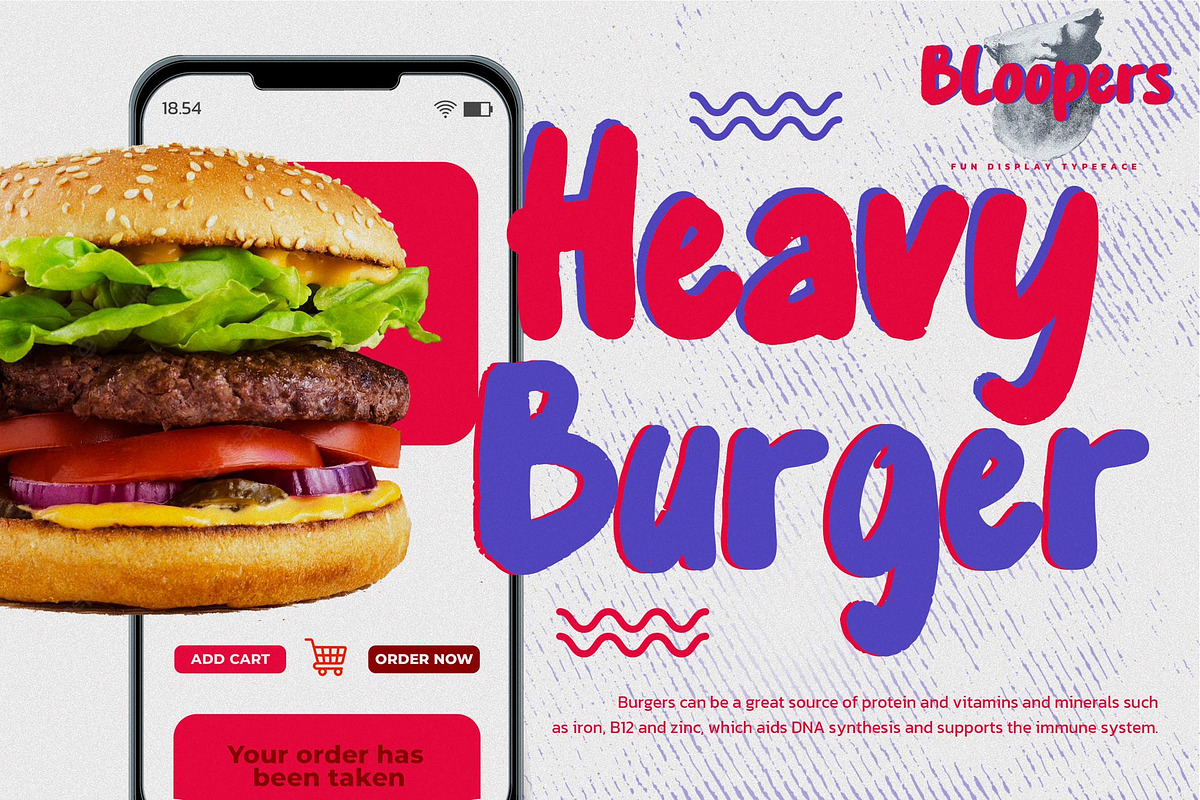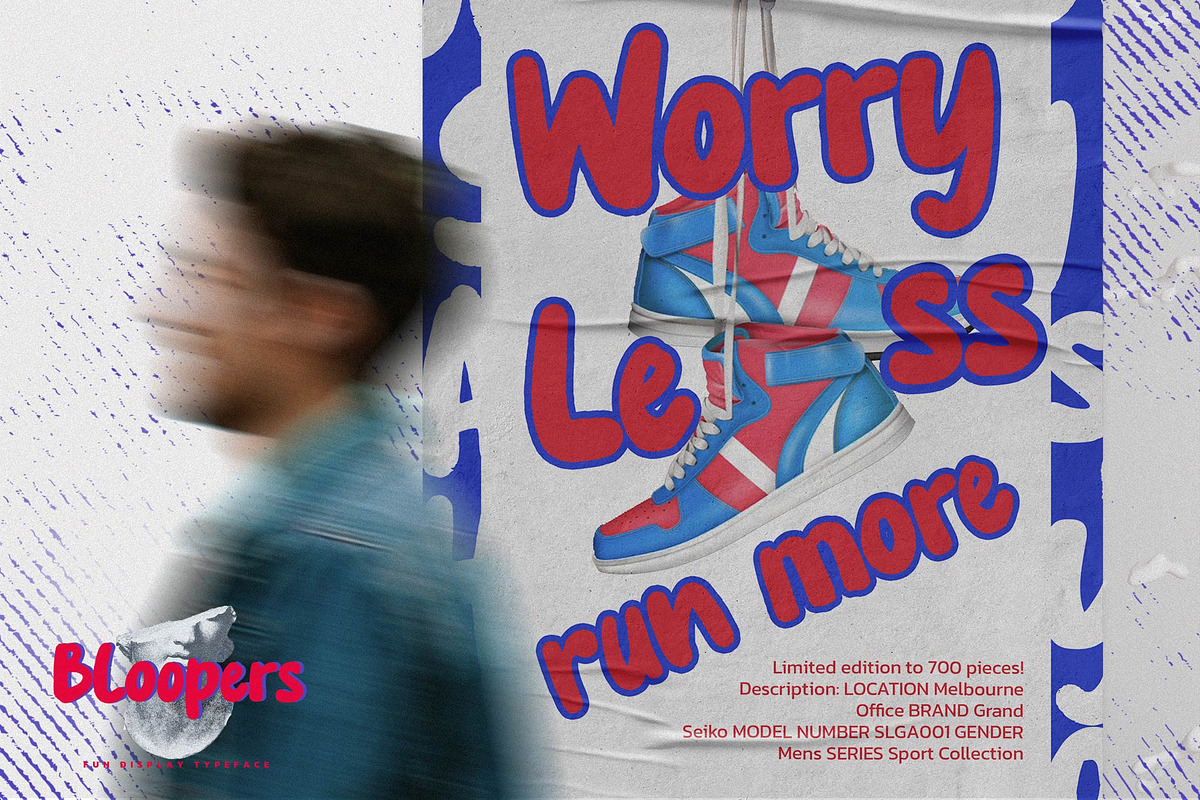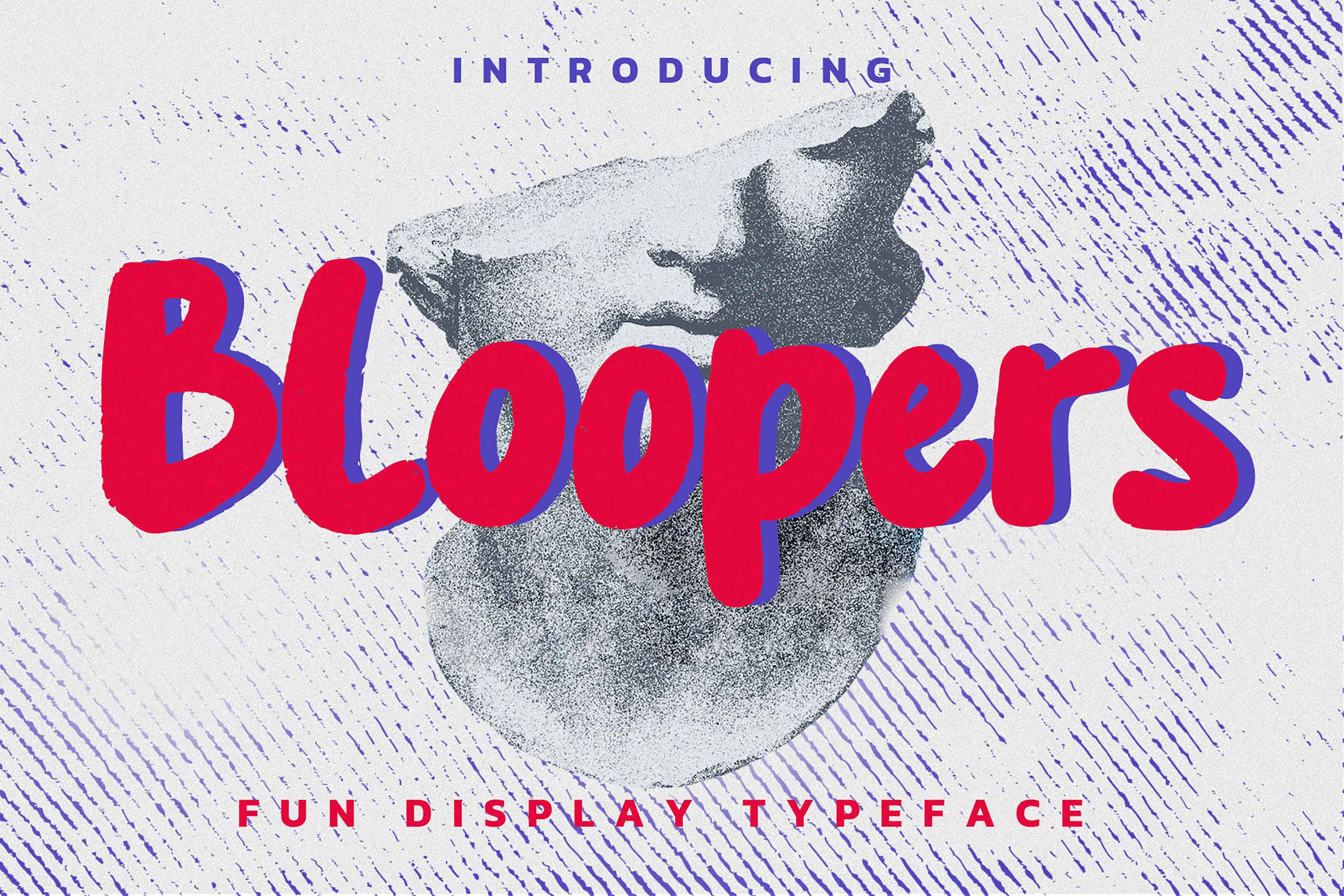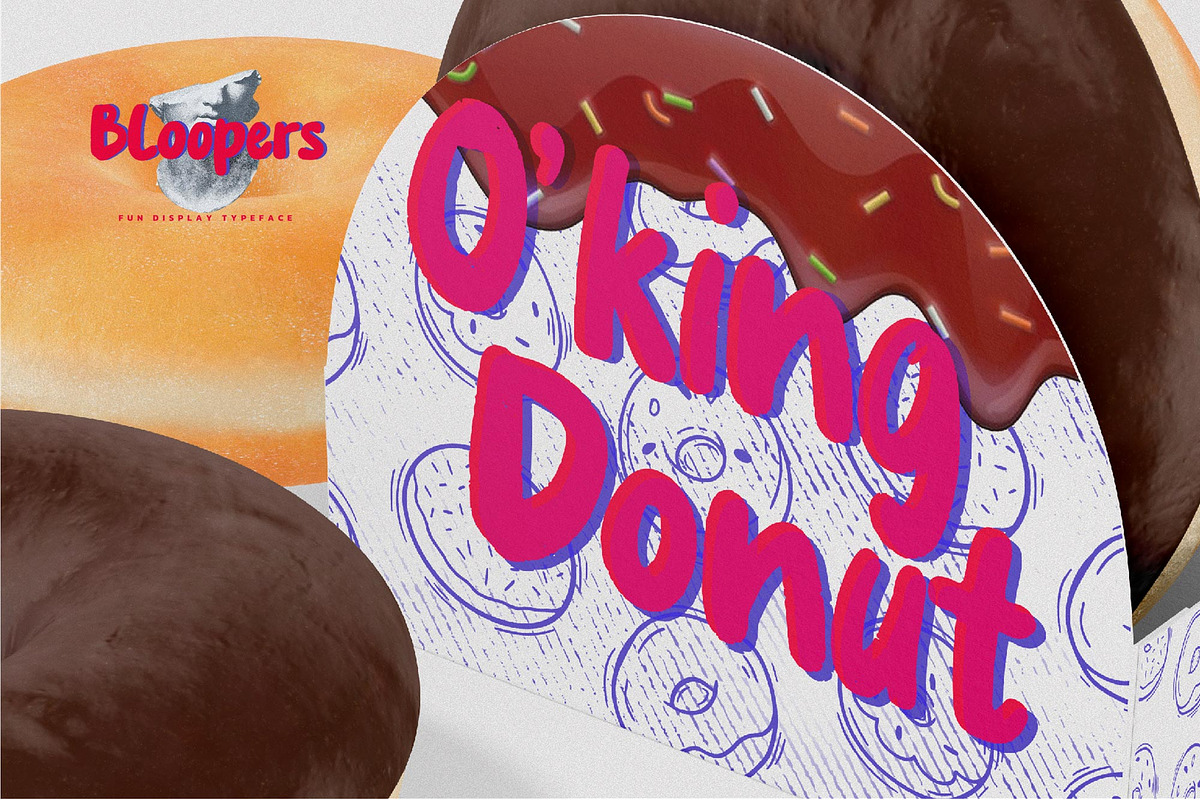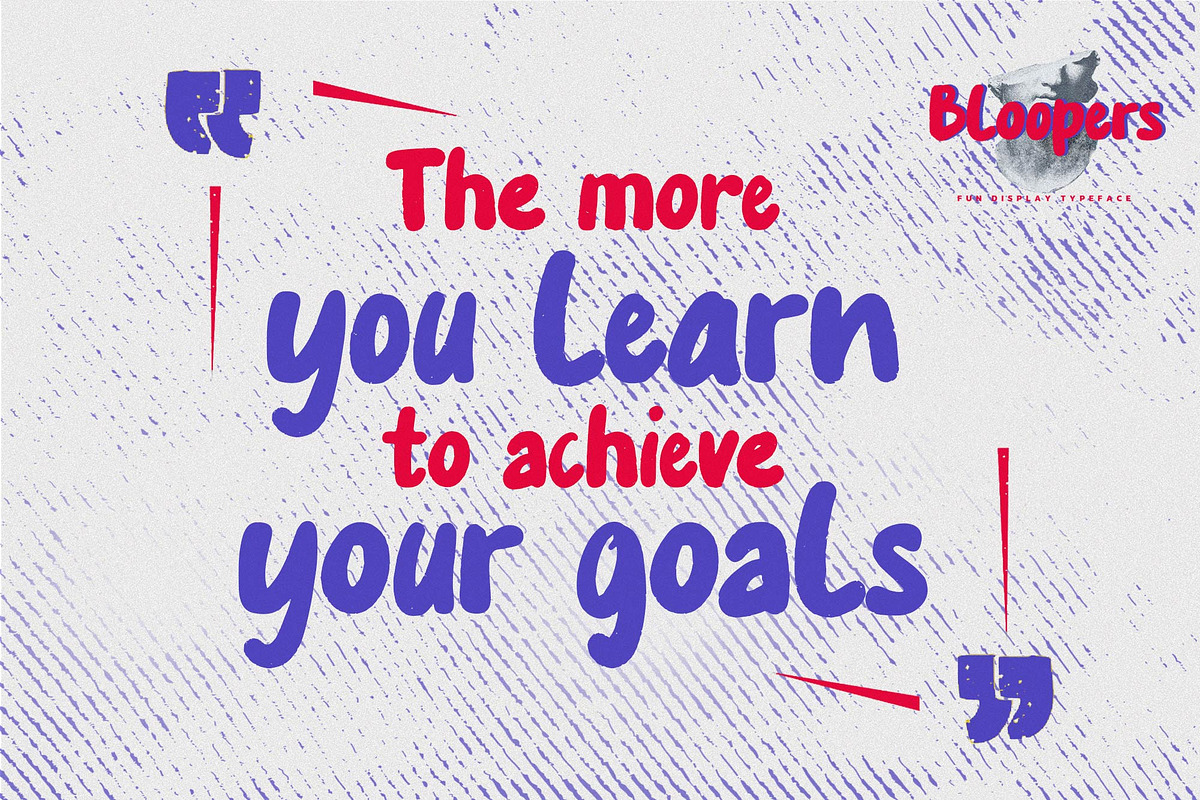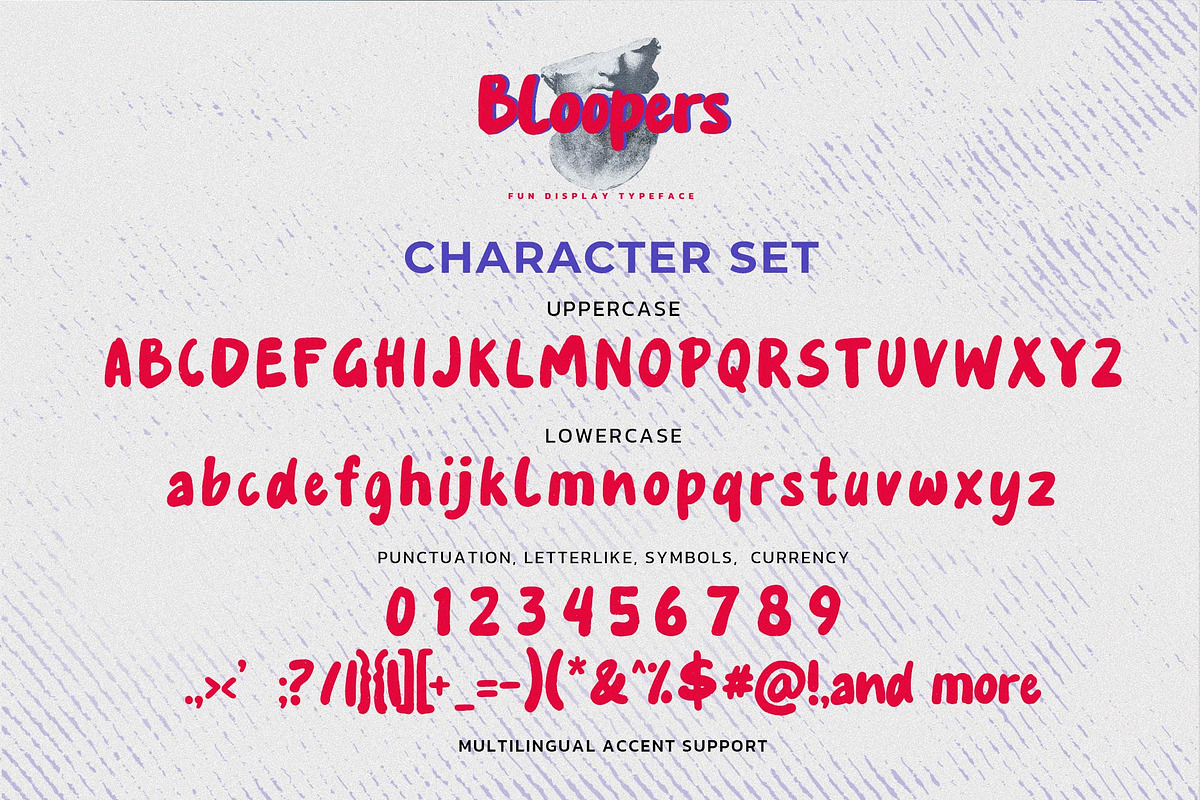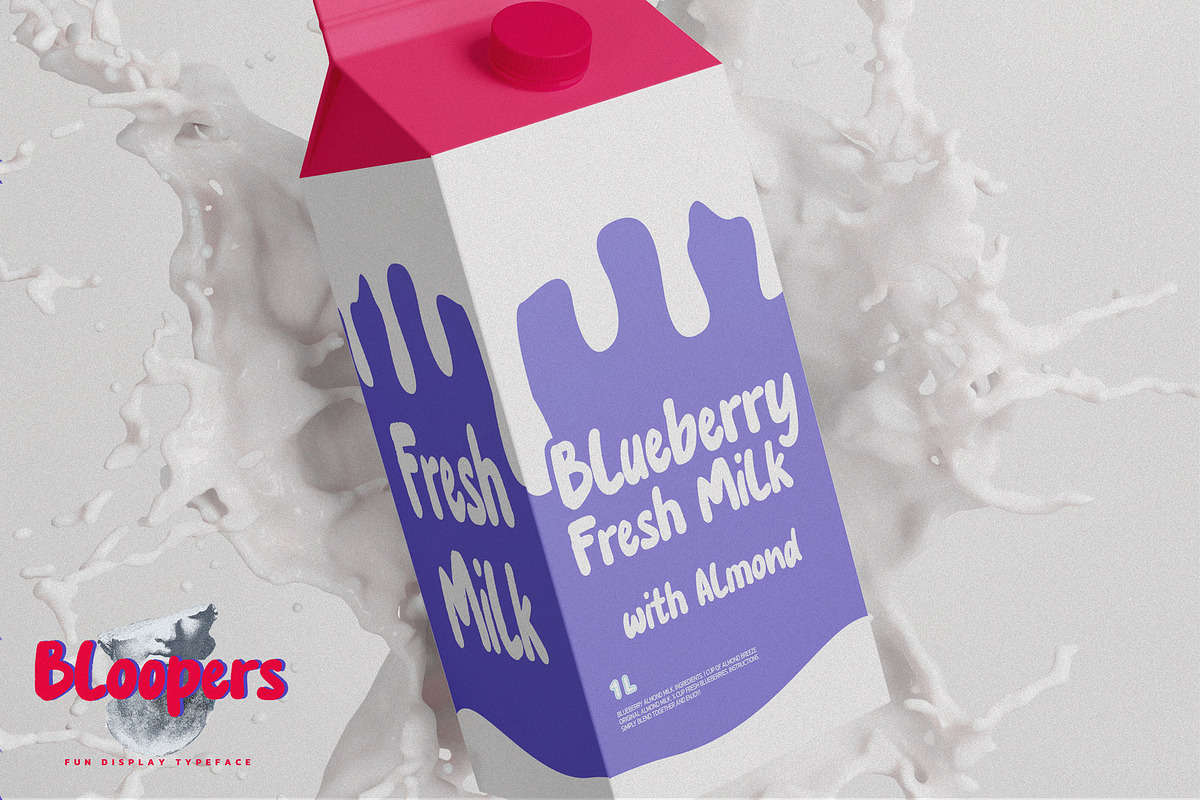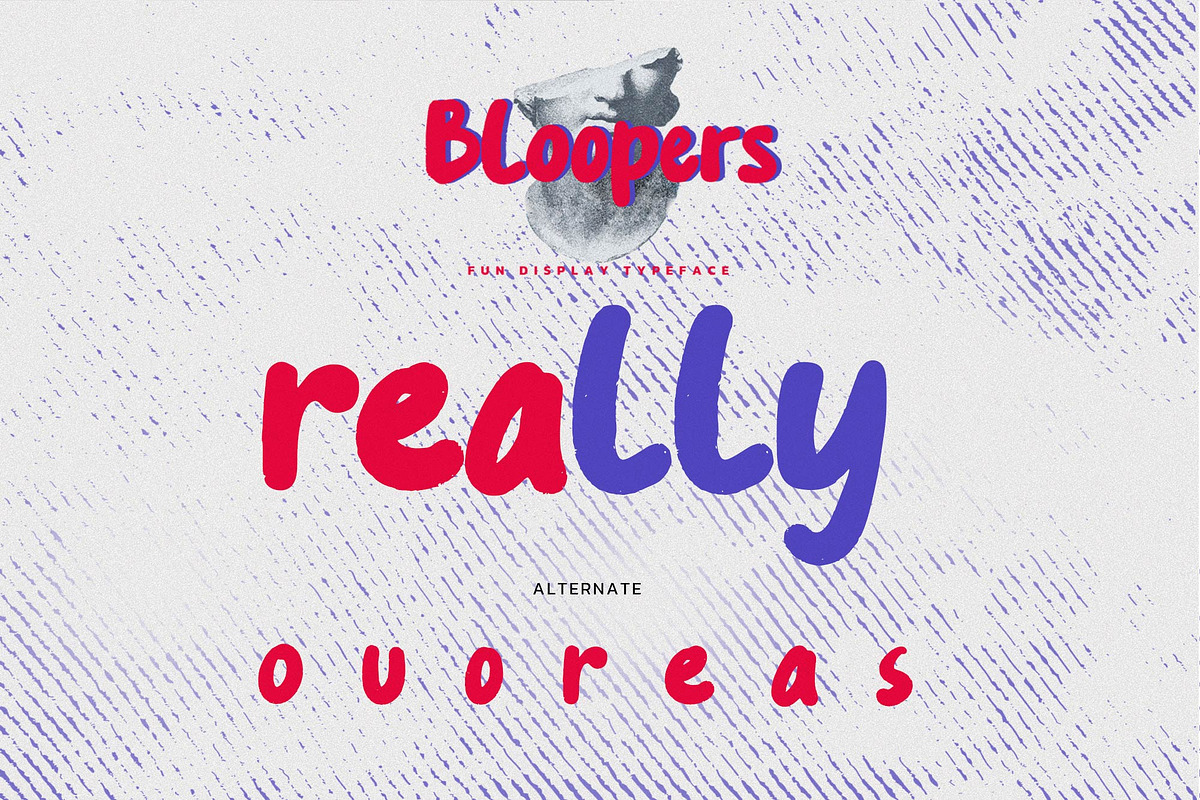
Bloopers - Fun Display Typeface
Hello Everyone, introduce our new product Font Bloopers is a Fun Display Typeface .This is a Textured Natural Style and classy style with a clear style and dramatic movement.
This font Bloopers is great for your next creative project such as logos, printed quotes, invitations, cards, product packaging, headers, Logotype, Letterhead, Poster, Design this font is great for your creative projects such as watermark on photography, and perfect for logos & branding, invitation,advertisements,product designs, stationery, wedding designs,label ,product packaging, special events or anything that need handwritting taste. That is has charming, authentic and relaxed characteristic more natural look to your text You can activate 7 Alternate OpenType panel.
- Alternate glyphs